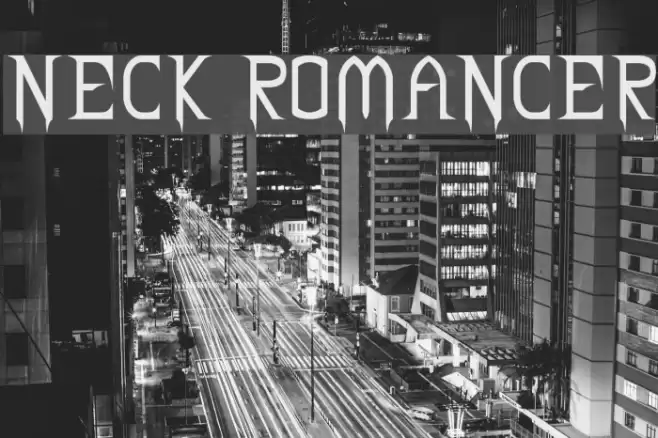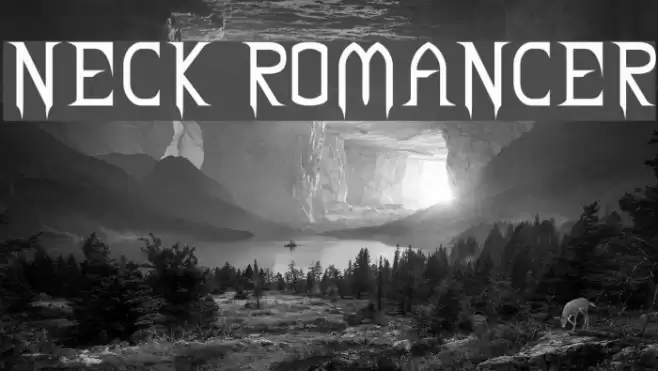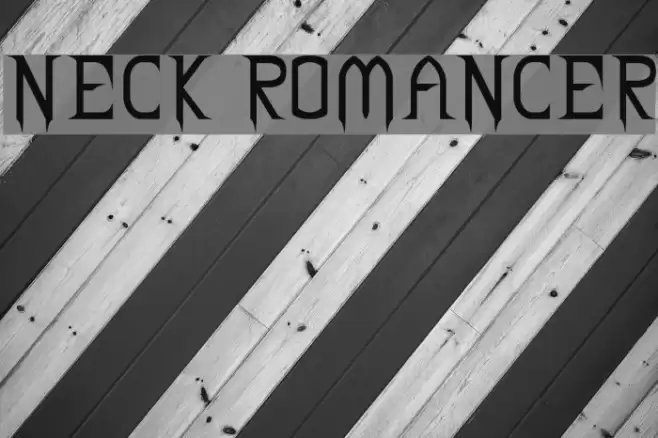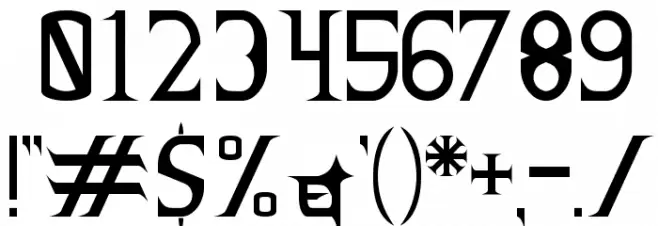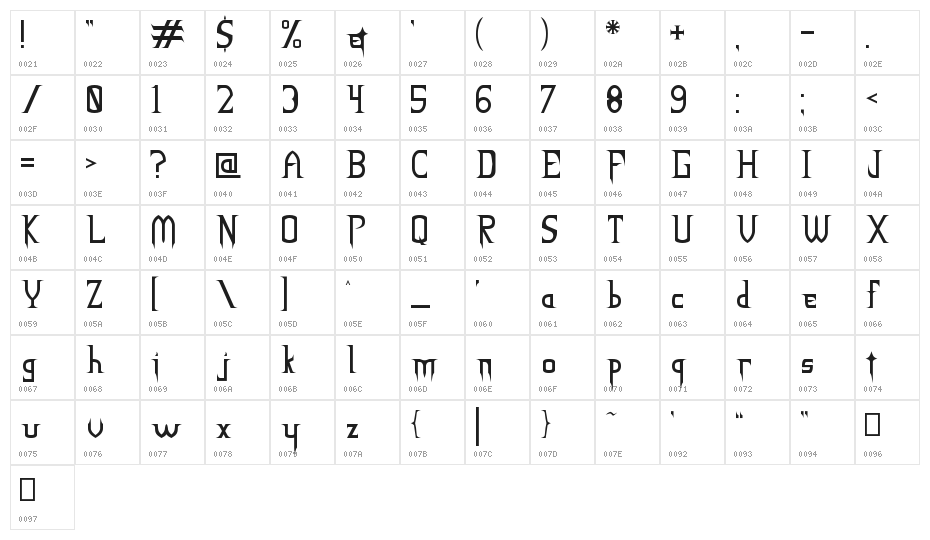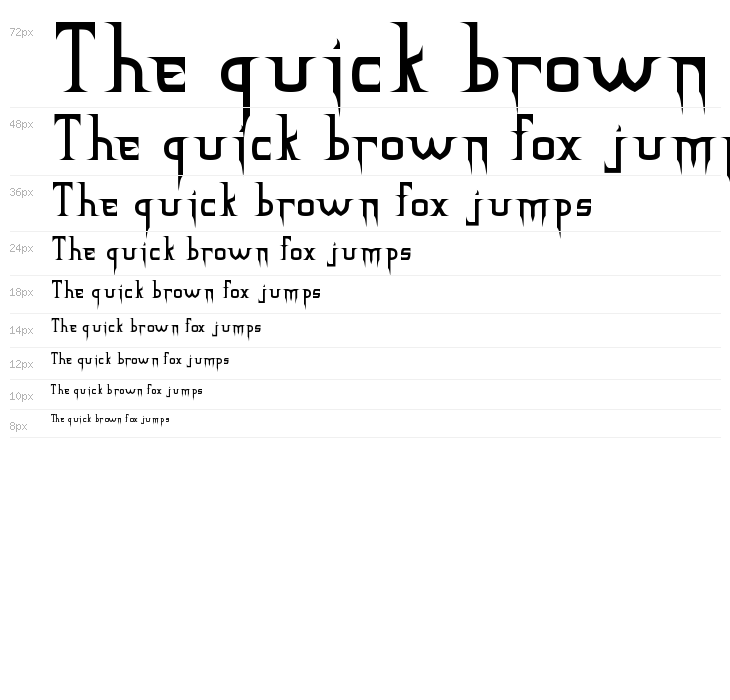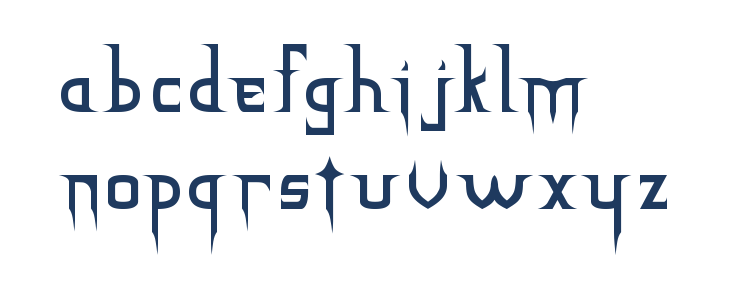
NECK ROMANCER Font
NECK ROMANCER Description
This font features a bold and dramatic style with sharp, angular edges and a gothic influence. The uppercase letters are tall and narrow, with pointed serifs that give a sense of elegance and intensity. The lowercase letters maintain the same sharpness, creating a cohesive look across the alphabet. Numbers and special characters are designed with the same attention to detail, ensuring consistency throughout. The overall appearance is striking and memorable, making it ideal for projects that require a bold statement.
A bold, gothic-inspired font with sharp, angular edges and pointed serifs from Uncategorized fonts.
- Proposed Projects: Ideal for horror-themed designs, album covers, posters, and branding that requires a dramatic and edgy look.
- Overall Style: Gothic, Dramatic